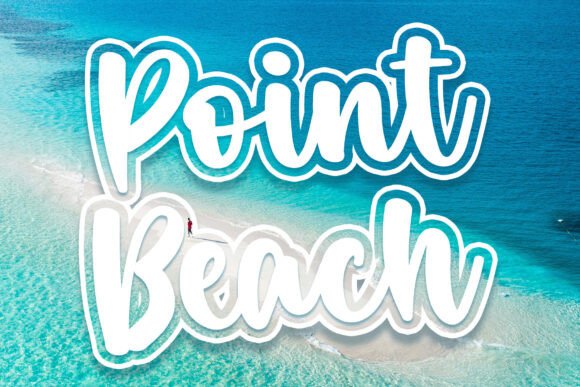
Point Beach Font: A Playful Display Font for Summer Designs
About the Point Beach Font
Meet Point Beach Font, a stunning font that brings a touch of elegance and professionalism to any design. Point Beach is a beautiful and eye-catching font designed with a soft, unique touch. Its distinctive strokes give it a special character, making it meaningful and versatile for future use. With various characters, it’s perfect for design projects, crafts, and other creative works.